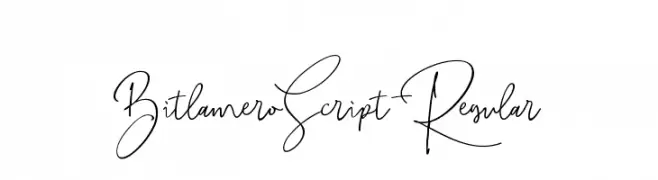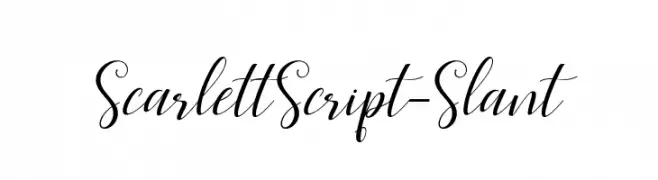
A bold, elegant script font with flowing, interconnected characters.
An elegant script font with fluid, cursive strokes and refined contrast.
A delicate and flowing script font with elegant cursive letterforms.
A refined script font with elegant, flowing cursive letterforms.
An elegant script font with flowing, intricate loops and swashes.
An elegant script font with flowing, interconnected letters and delicate flourishes.
A fluid, elegant handwritten font with a sophisticated and creative style.
A graceful and elegant script font with flowing, interconnected characters.
An elegant script font with flowing, decorative cursive letterforms.
A sophisticated, slanted script font with elegant loops and flourishes.